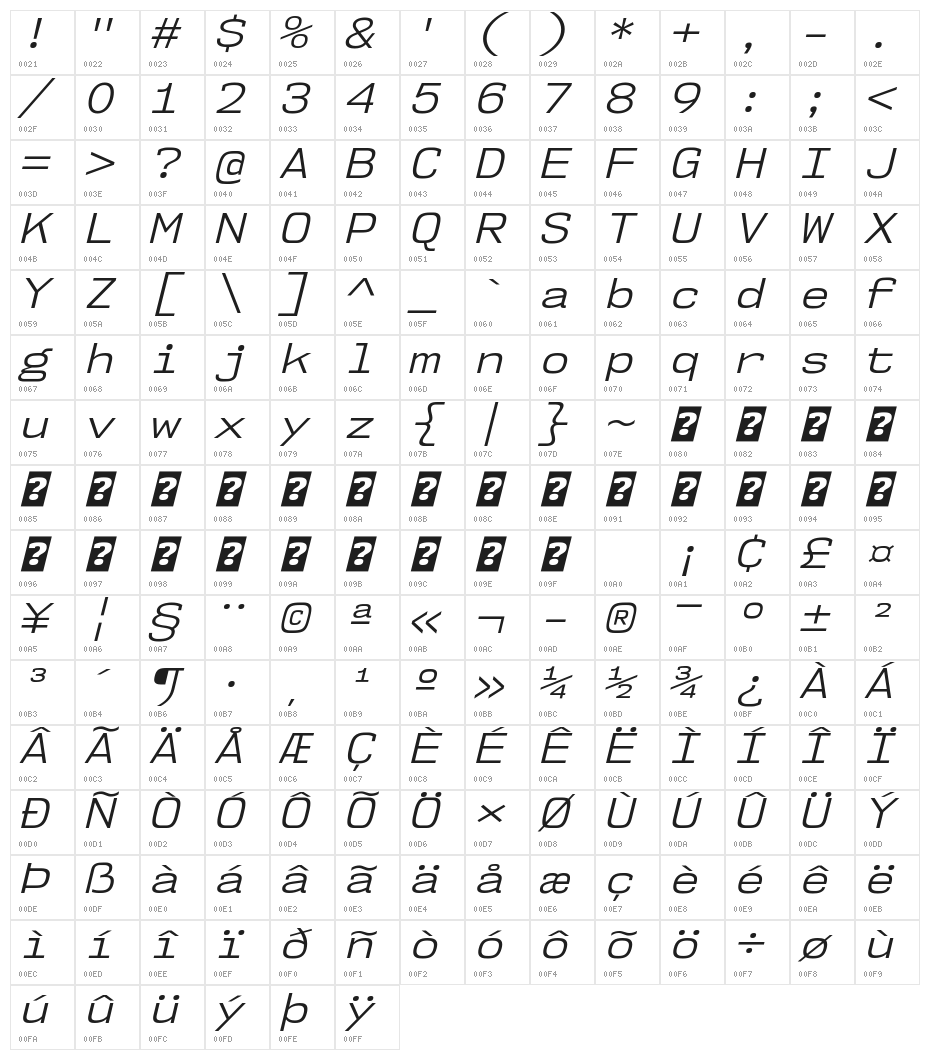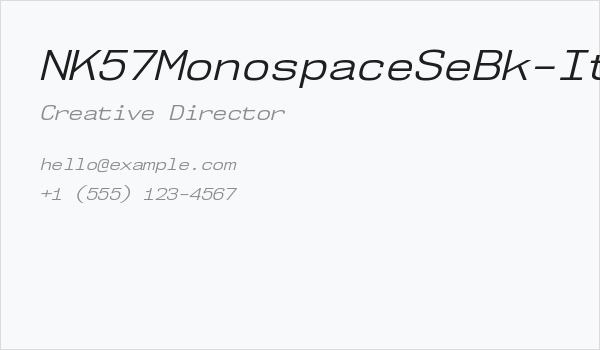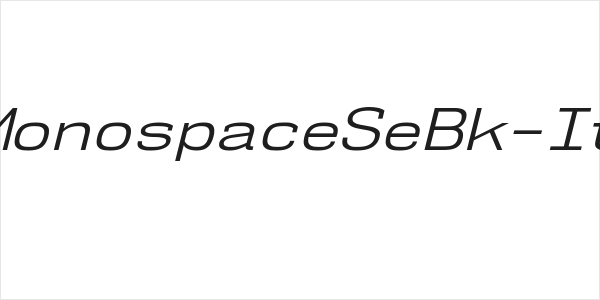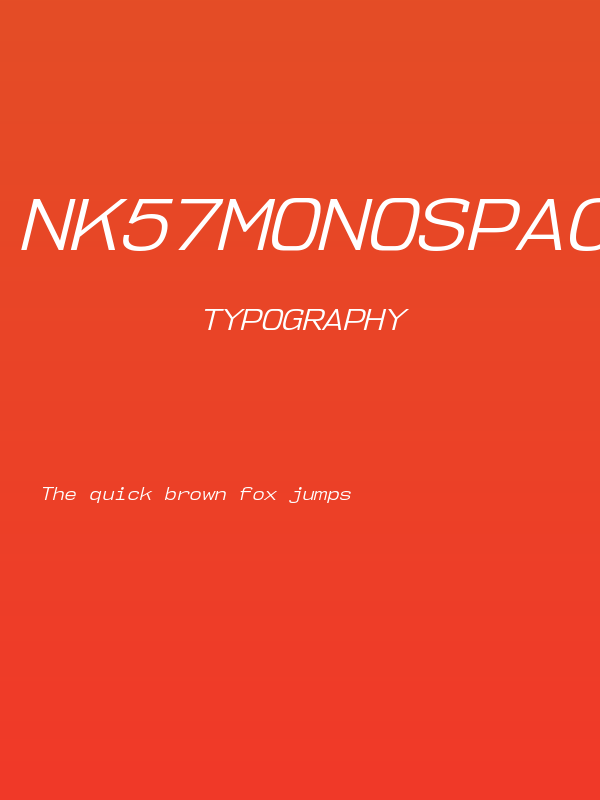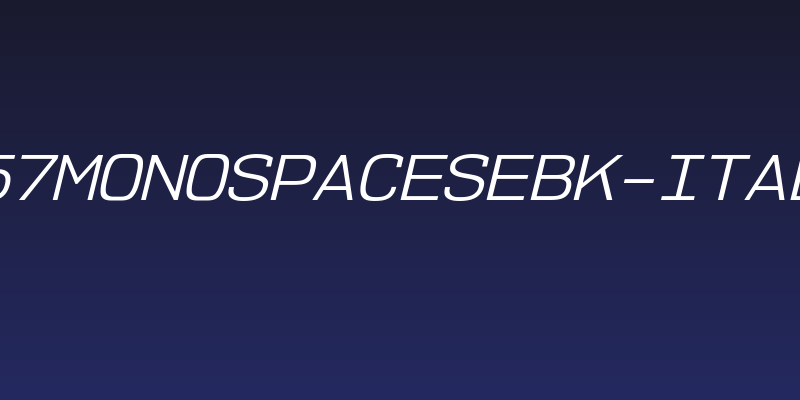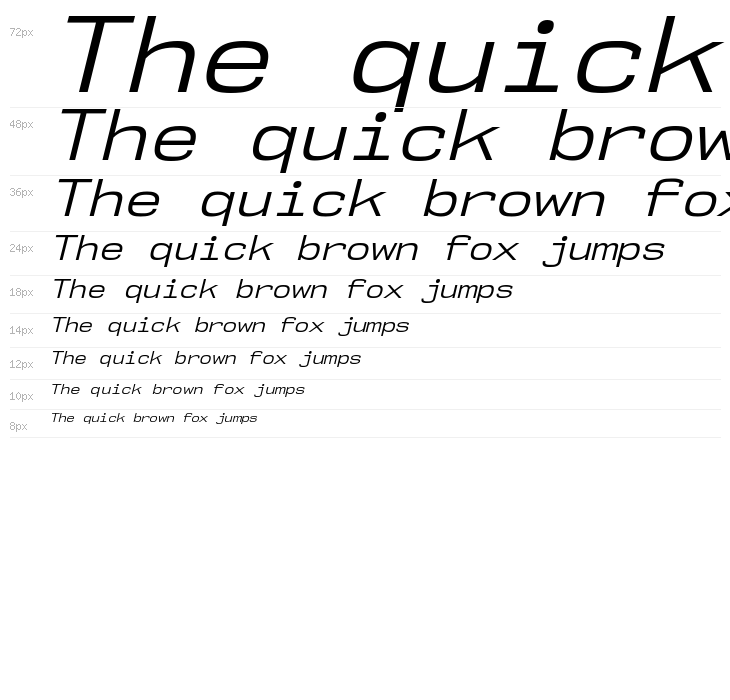
NK57MonospaceSeBk-Italic Font
NK57MonospaceSeBk-Italic Description
This font features a clean, structured design with a monospaced layout, ensuring each character occupies the same amount of horizontal space. The italic style adds a dynamic and modern touch, making it suitable for technical and creative applications alike. The characters are slightly slanted, providing a sense of motion and fluidity. The stroke contrast is low, maintaining uniformity across all characters. The font includes a full set of uppercase and lowercase letters, numbers, and a variety of special characters, making it versatile for different uses.
| Use Case | Coding, Technical documentation, Creative design |
| Proposed Projects | Ideal for coding, technical documentation, and creative design projects requiring a modern and uniform appearance. |